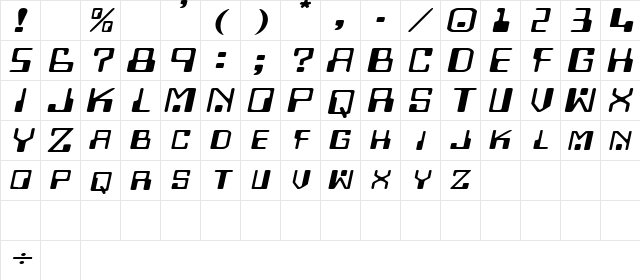
DigitalMachineExtended Oblique
Design Context for DigitalMachineExtended Typeface
DigitalMachineExtended channels digital-age aesthetics through its sharp, structured letterforms — ideal for brands that want to signal innovation. Its italic angle brings a sense of urgency and motion to the letterforms.